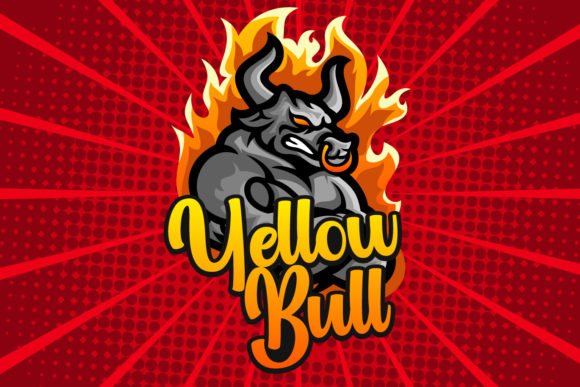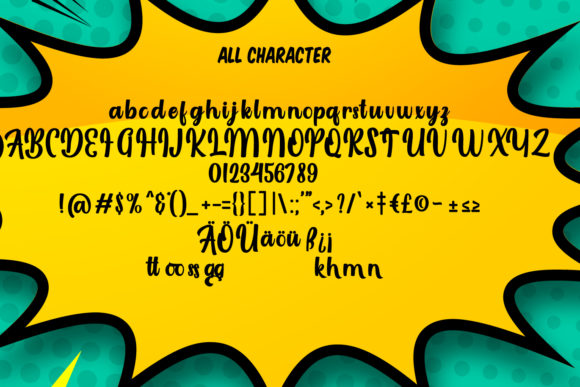
Introduction to Laggran Font
Have you ever been working on a creative project and found the perfect font to bring it to life, only to realize it’s not the right fit? I’ve been there too. But what if I told you there’s a font that’s so charming, it’s hard to resist its playful charm? Enter the Laggran Font, a script font that’s sure to captivate your audience.
With its transparent background and casual style, the Laggran Font is perfect for designers looking to add a touch of whimsy to their designs. Whether you’re working on a logo, poster, or social media graphics, this font is sure to bring a smile to your face and delight your audience.
Key Features of Laggran Font
- High-quality, elegant design ideal for creative projects and design resources.
- Unique characteristics include a sophisticated, modern aesthetic and a wide range of customization options.
- Designed to be highly versatile, making it suitable for a variety of design applications, from logos and branding to digital graphics and print materials.
Honest Review: Laggran Font
As a designer, I’m always on the lookout for high-quality design resources that can elevate my creative projects. Recently, I had the chance to try out the Laggran Font, and I must say, it’s a great addition to my design arsenal.
- ✨ Beautifully crafted letters with a unique flair
- ✨ Perfect for designs that require a touch of elegance and sophistication
- ⚠️ Limited character set, which might not be ideal for lengthy texts
Overall, I’m impressed with the Laggran Font’s potential to add a touch of sophistication to my designs. While it may not be the most versatile font, it’s definitely a great choice for specific creative projects that require a high-quality, elegant look.
Common Use Cases for Laggran Font
Laggran Font is a versatile design resource that can be used in a variety of creative projects, including business cards, logos, brochures, and presentations. It’s also great for personal projects, such as blog posts, social media graphics, and photo captions. With its high-quality design and transparent background, Laggran Font is a great addition to any design toolkit.